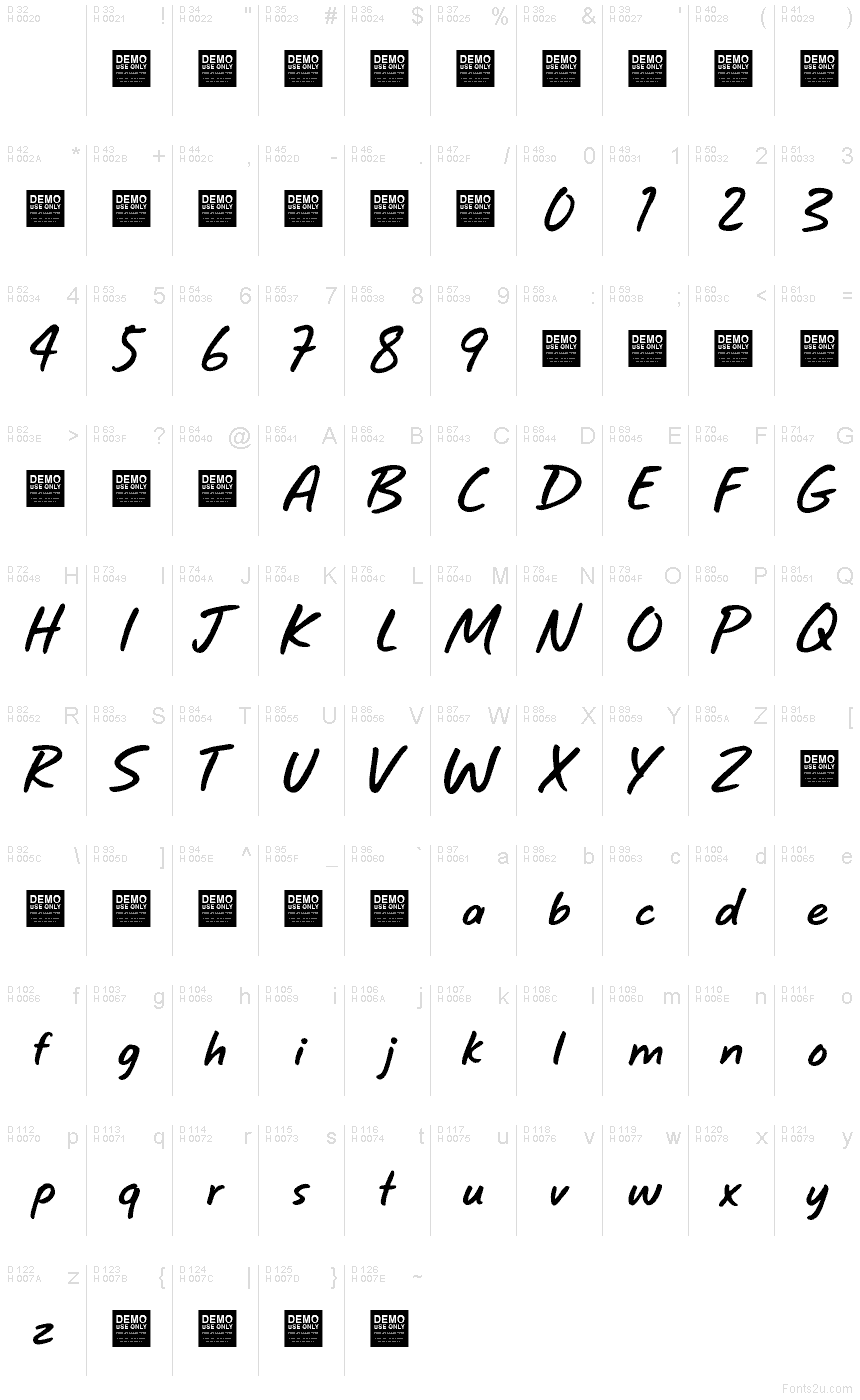
Sonic Waves
Sonic Waves font by BLKBK Fonts is an expressive, contemporary handwritten font with energetic flowing characters. Its smooth lines and casual elegance make this typeface stand out with a unmatched artistic presence.